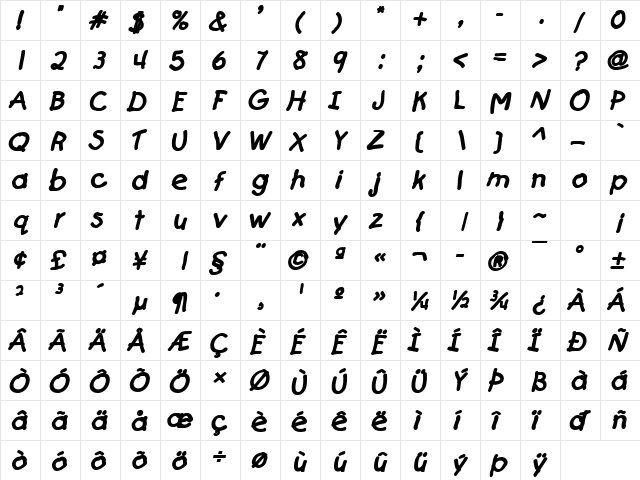
Catchup BoldItalic
Catchup Family
Design Context for Catchup
Catchup is a composed and adaptable typeface that performs quietly and consistently across a wide range of design contexts. The slanted form adds forward momentum and visual energy. Its bold stroke weight gives it real presence on the page.
Pro Tip: Use Catchup for emphasis, pull quotes, and subheadings where its slanted energy can add rhythm to the layout.